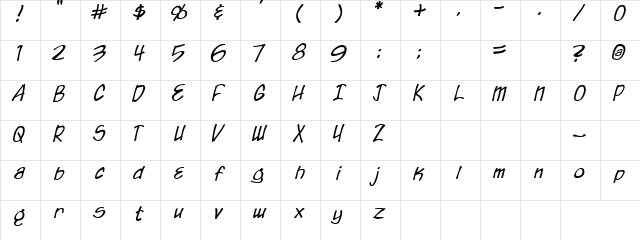
Pappas Tie Regular
Design Context for Pappas Tie Typeface
Pappas Tie is a composed and adaptable typeface that performs quietly and consistently across a wide range of design contexts.